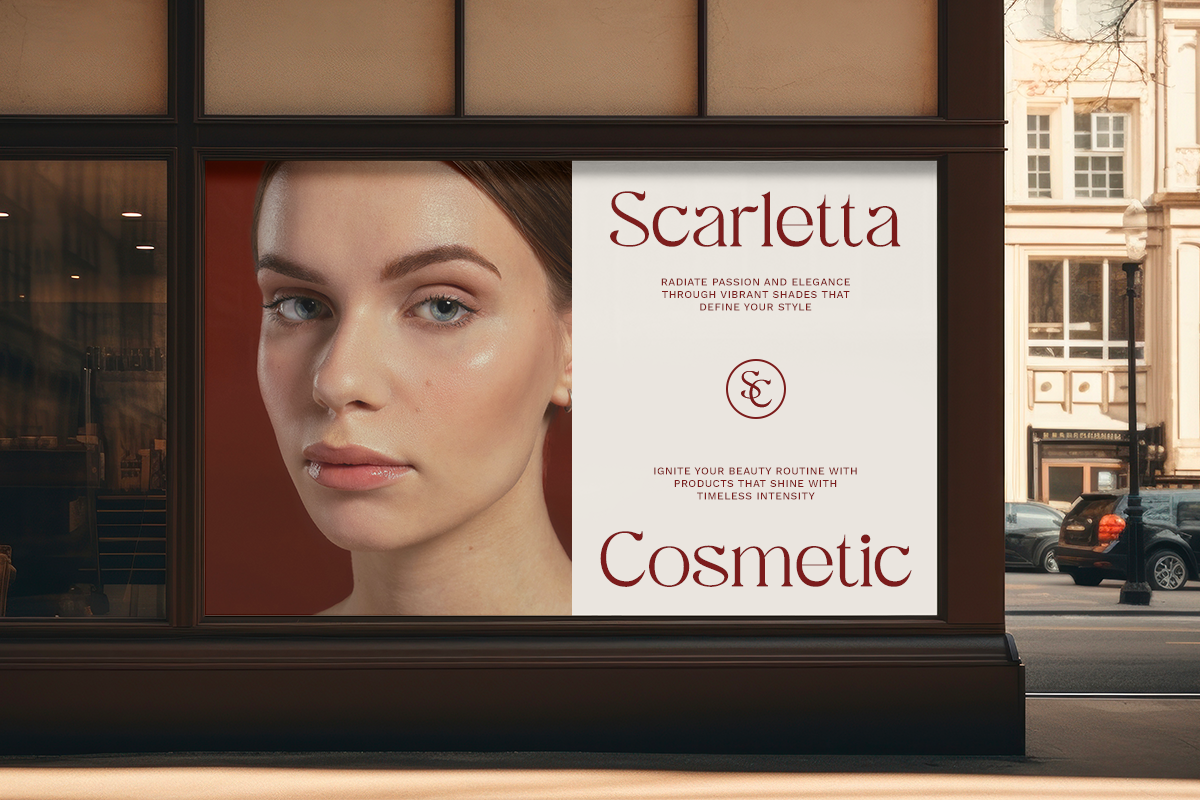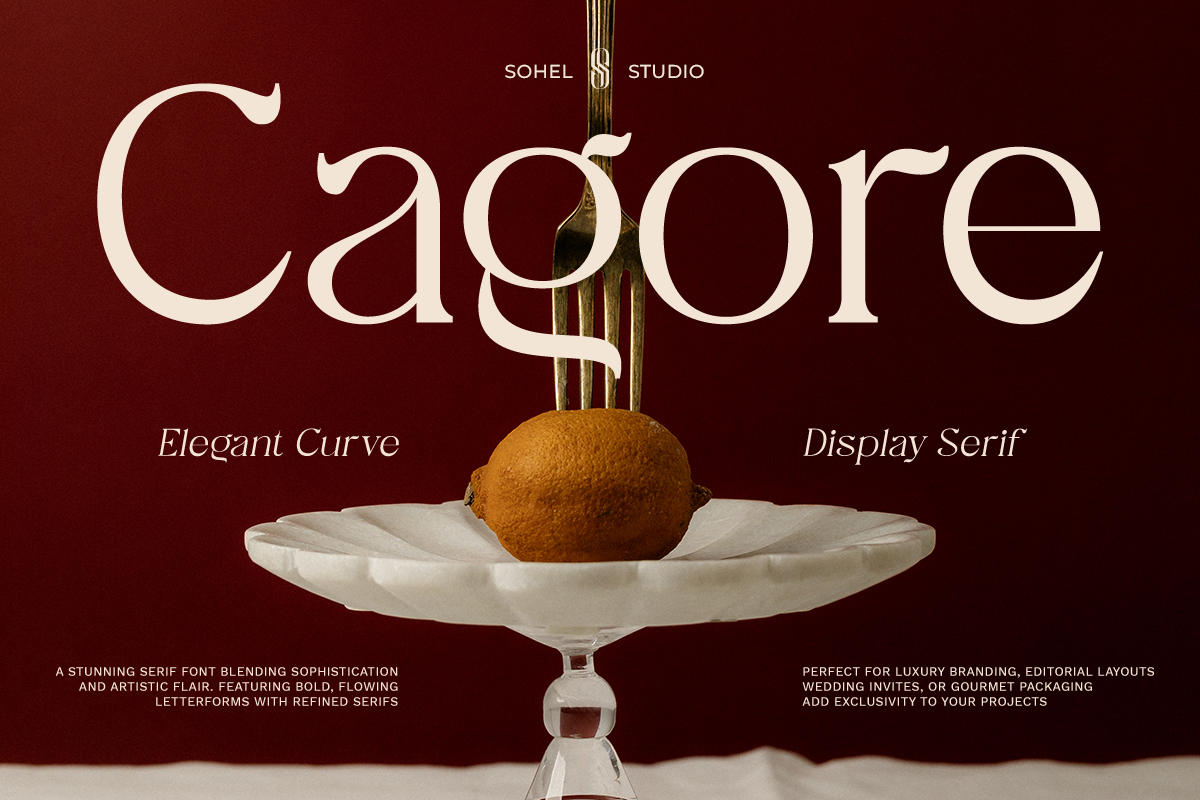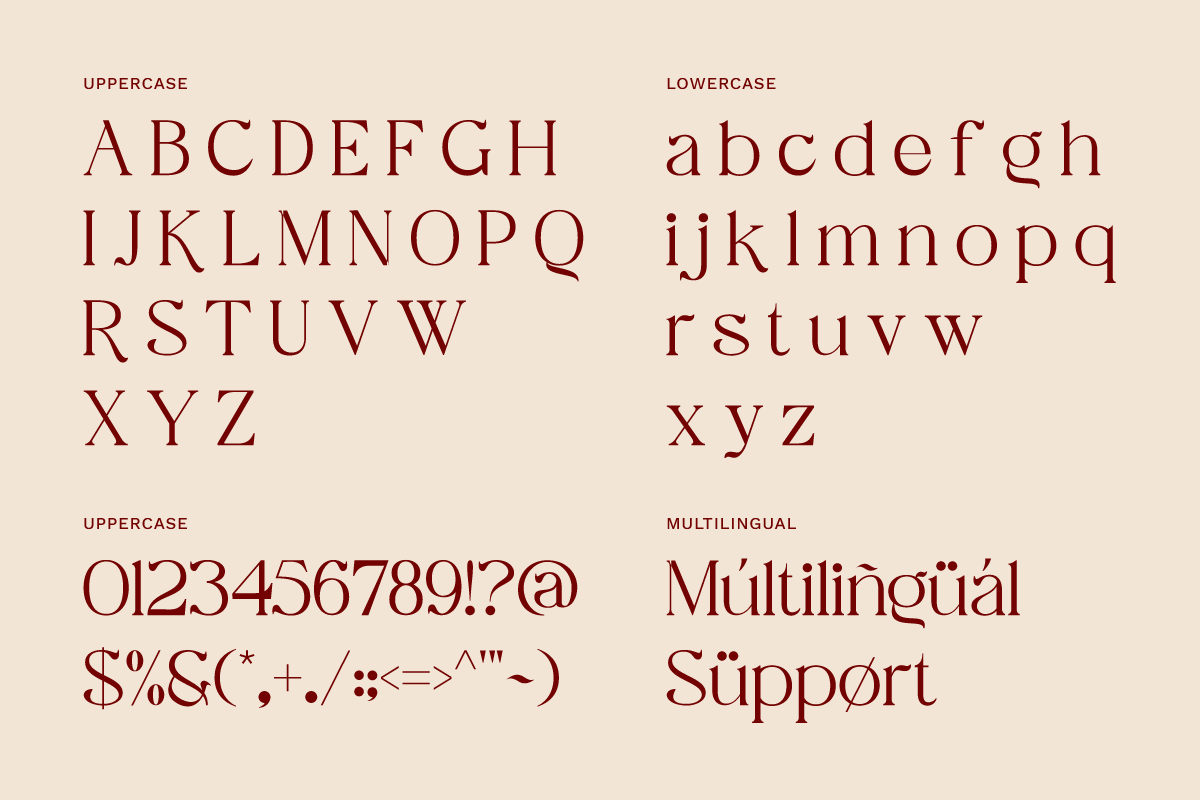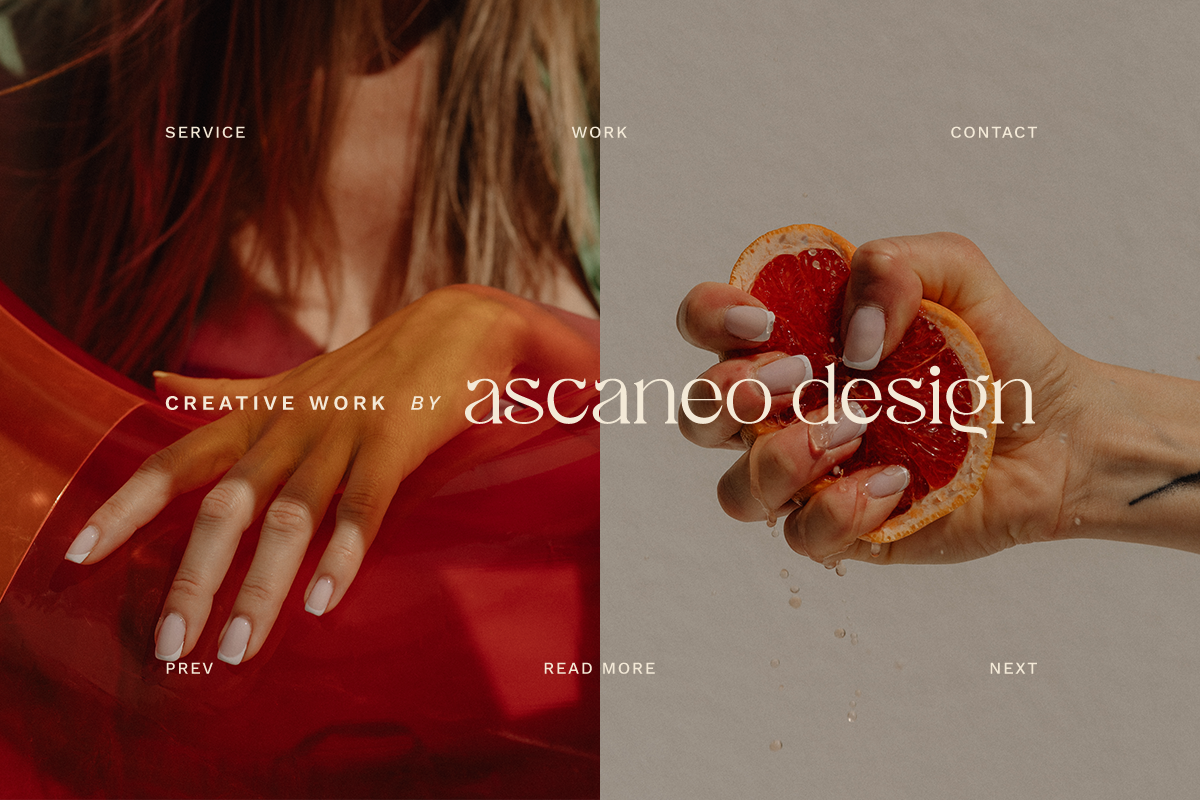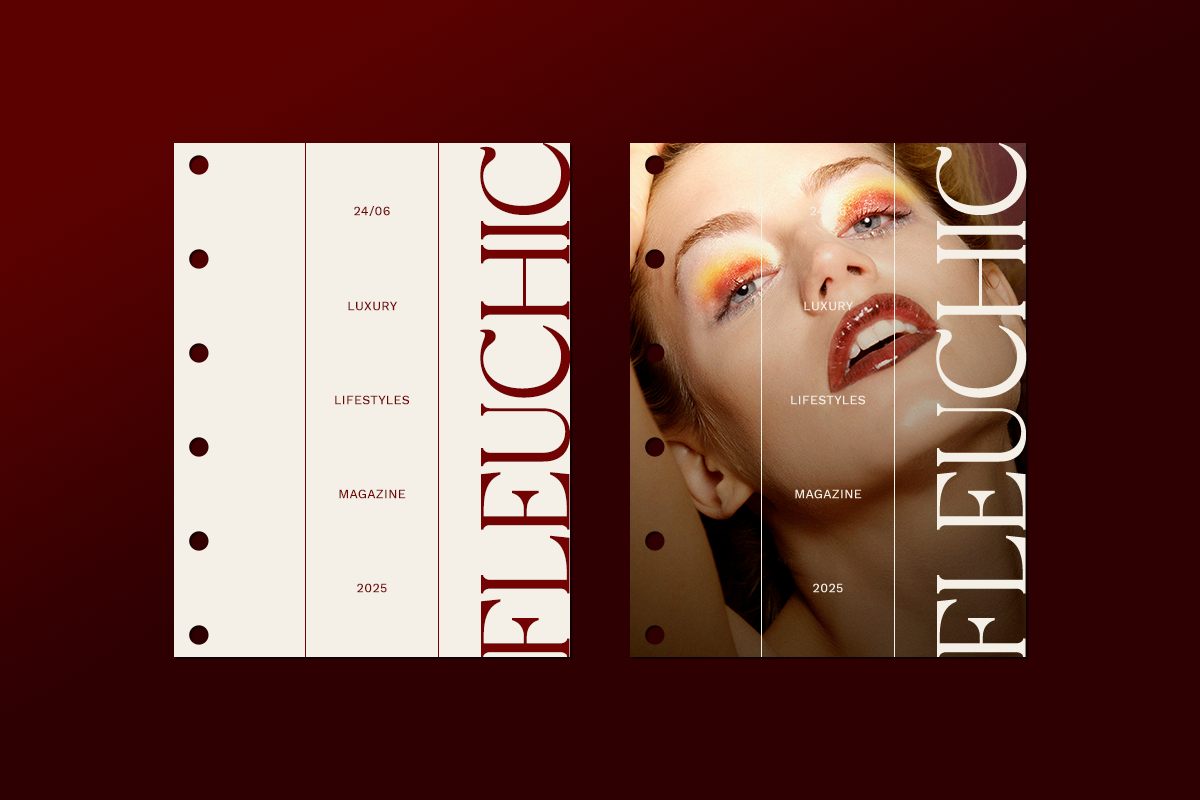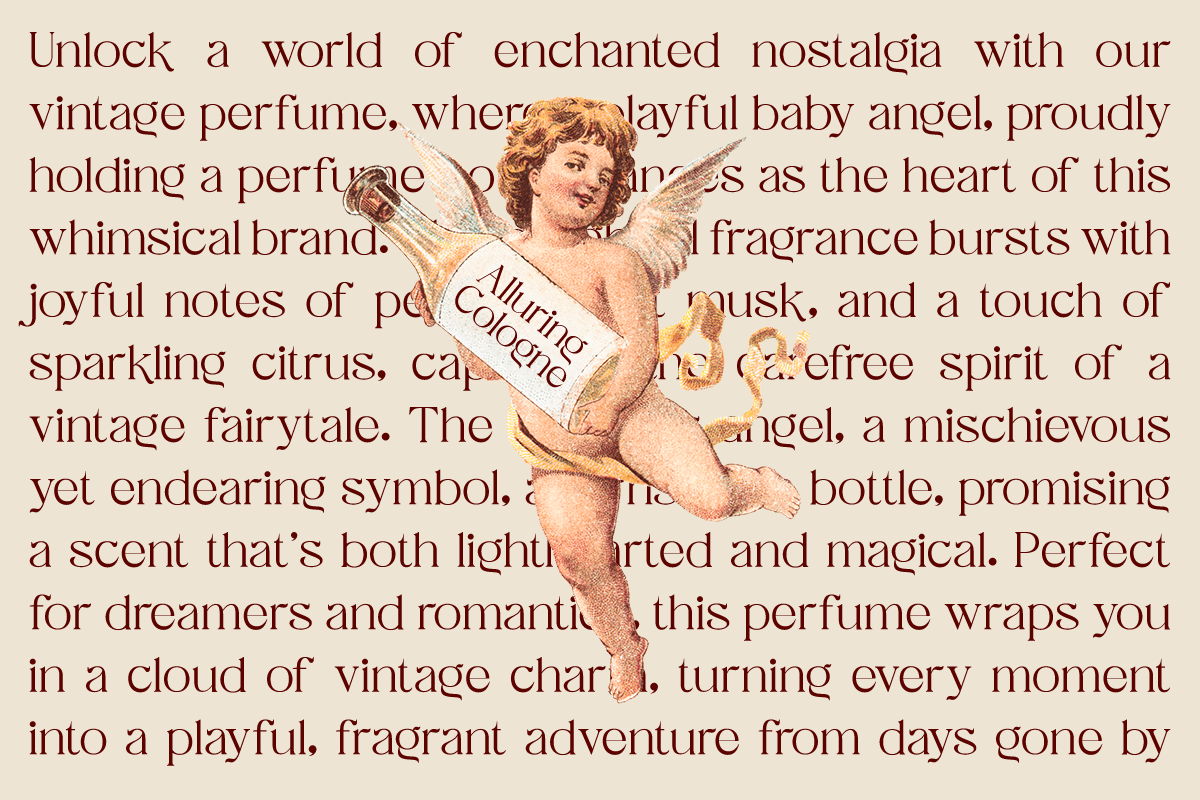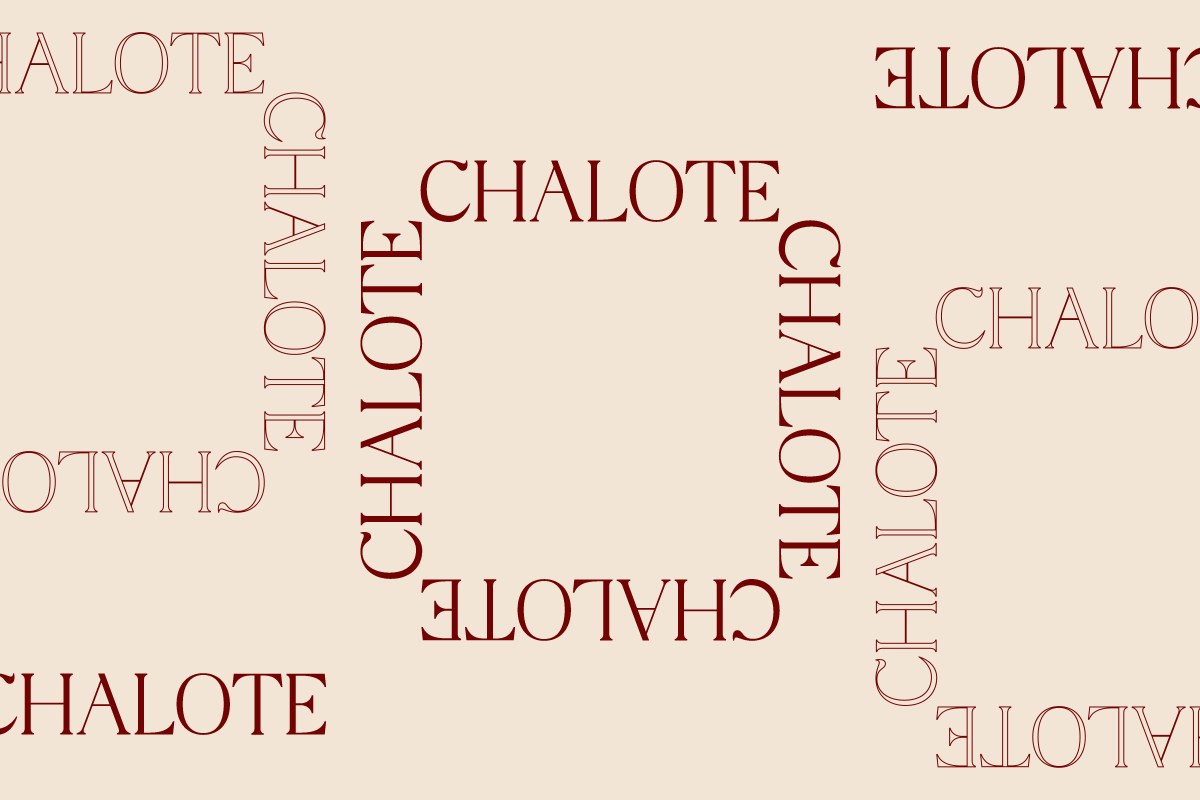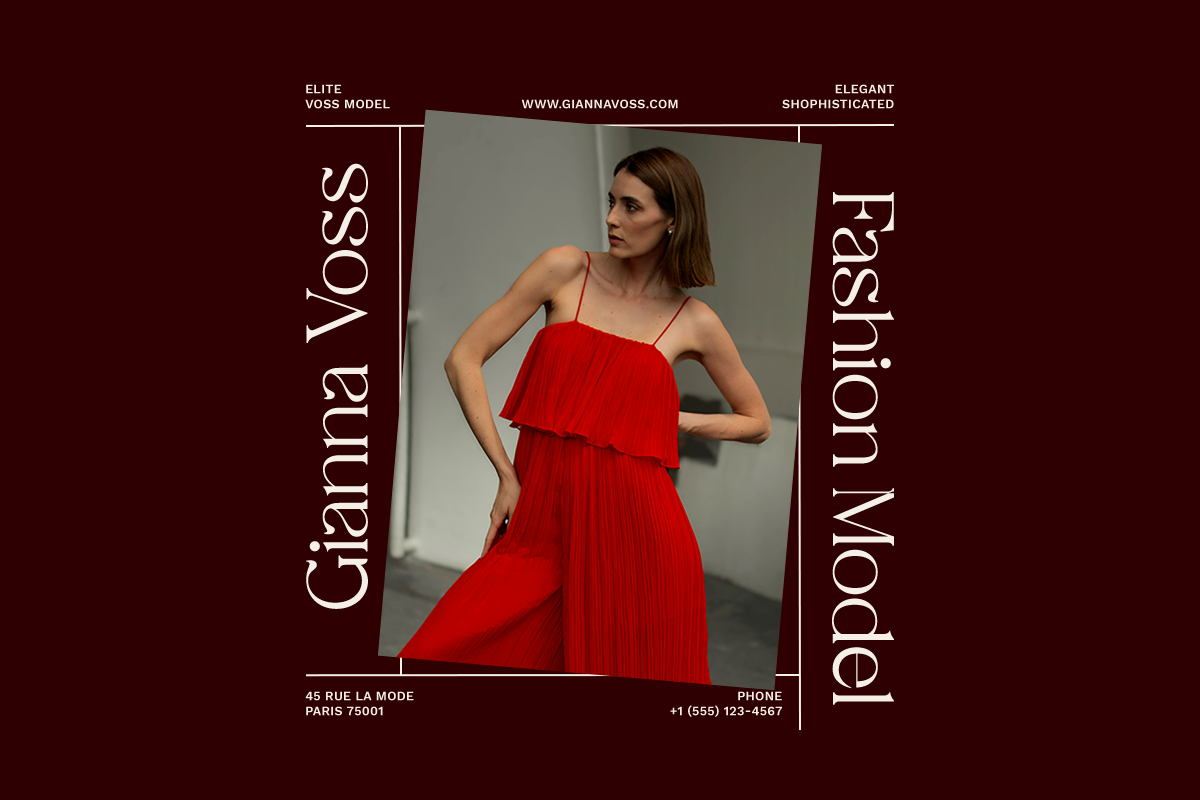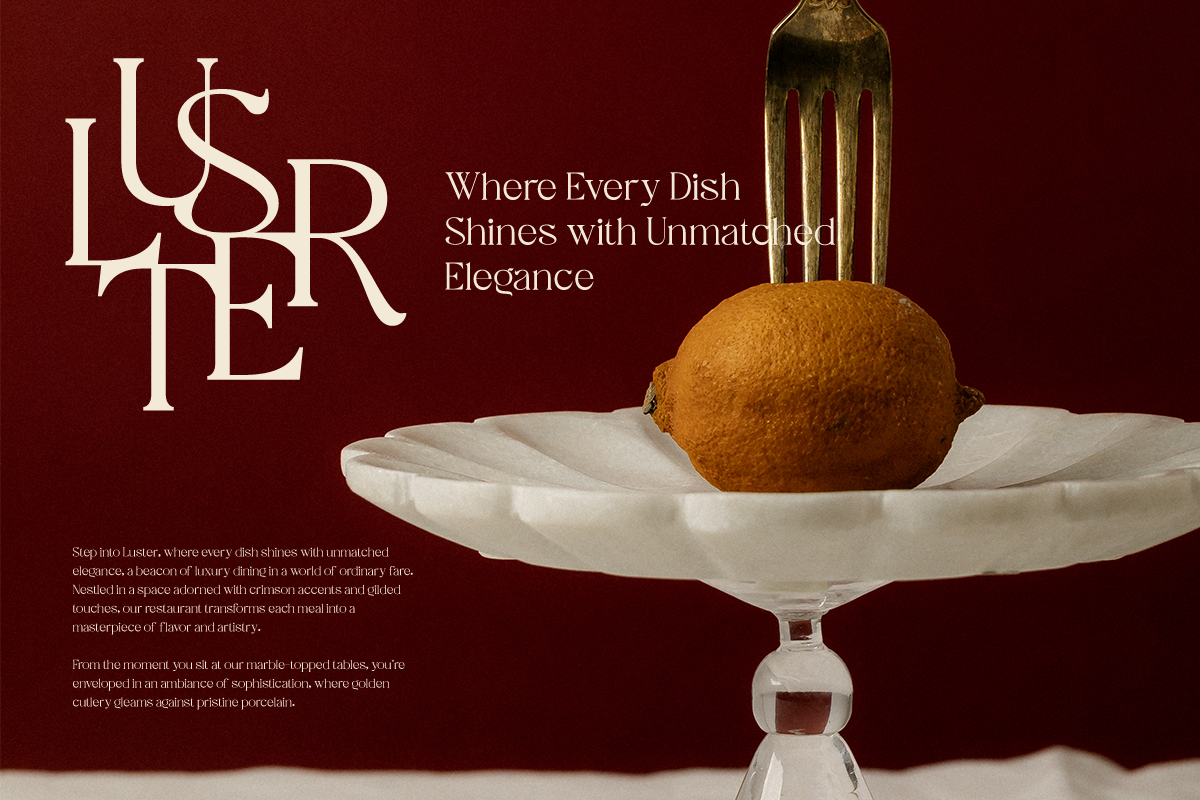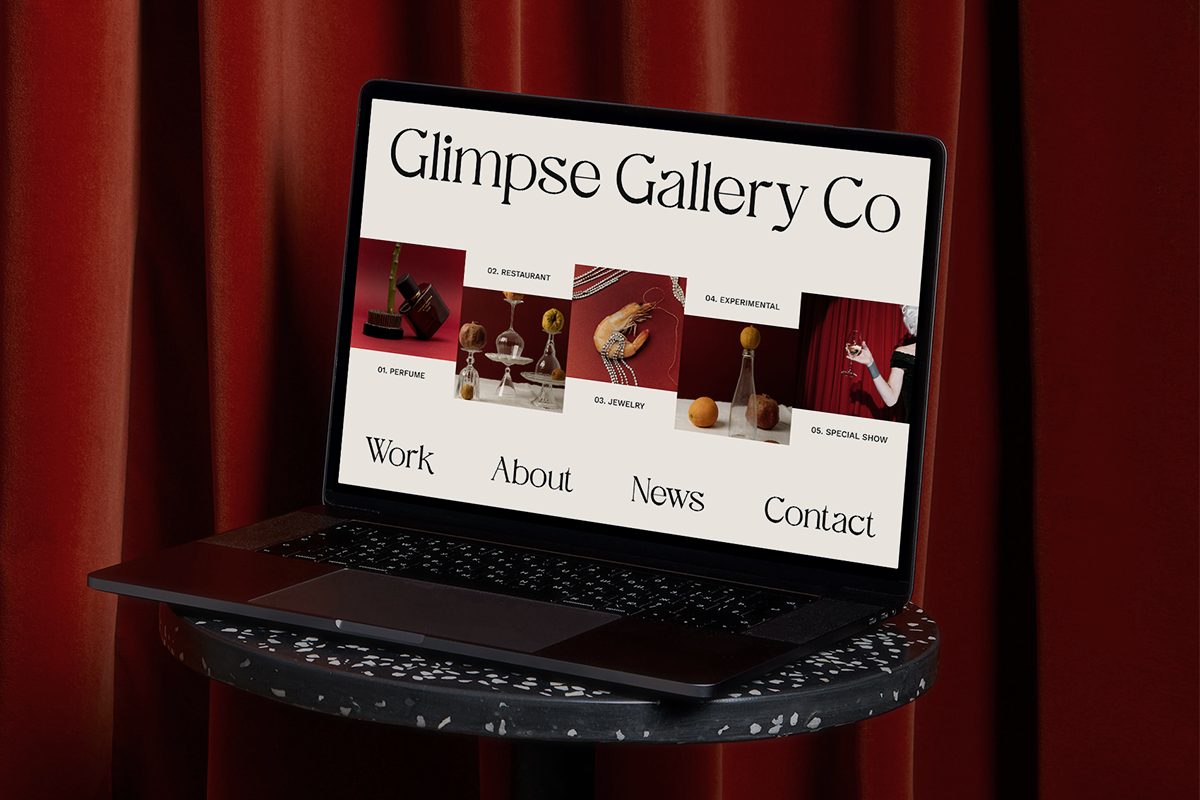
Cagore – Elegant Display Serif Font
Cagore is a refined display serif font that exudes elegance and sophistication. Designed with smooth curves and well-balanced letterforms, this typeface seamlessly blends classic aesthetics with a modern touch. Its graceful serifs and high contrast strokes create a luxurious feel, making it the perfect choice for projects that demand an exclusive and timeless appeal.
Whether you're working on luxury branding, high-end editorial designs, wedding invitations, gourmet packaging, or elegant advertising campaigns, Cagore elevates your typography with a sense of grandeur and style. The carefully crafted details and artistic curves of this font ensure that every word appears effortlessly beautiful, drawing attention with its striking presence.
With its versatility, Cagore adapts well to various creative applications, from logo designs to magazine headlines, book covers, and even social media branding. Its bold yet delicate structure makes it an excellent choice for designers looking to infuse class and refinement into their work.
Bring sophistication to your designs with Cagore – a font that speaks elegance, artistry, and timeless beauty.
- Alternates for versatile letterforms
- Ligatures for smooth and stylish connections
- Ideal for logos, posters, invitations, and more
Cagore Features: